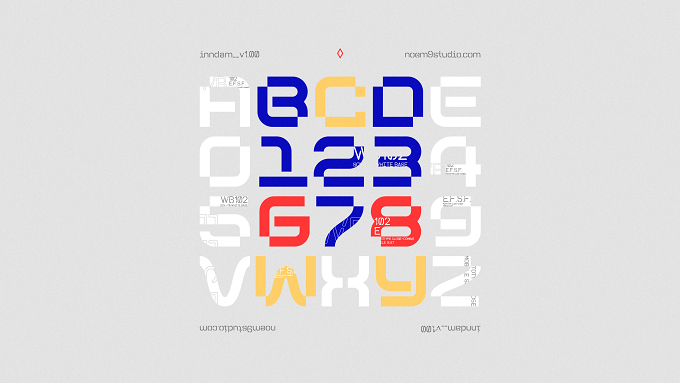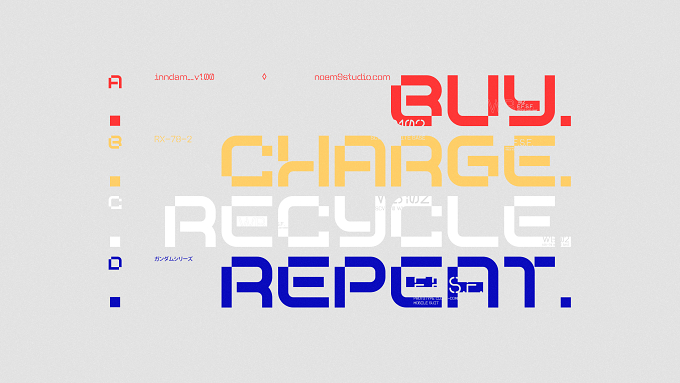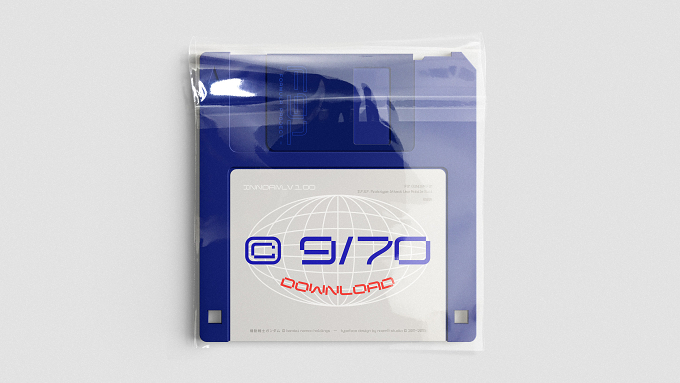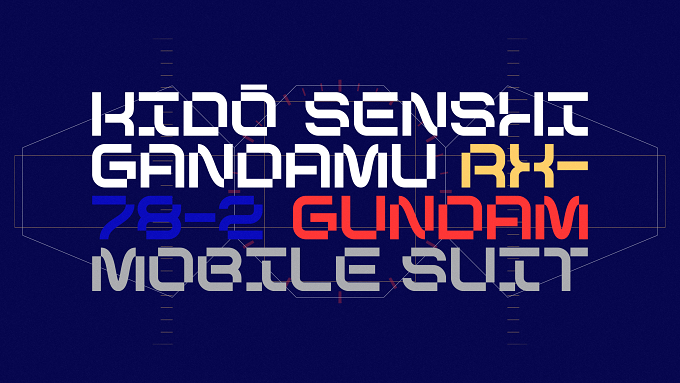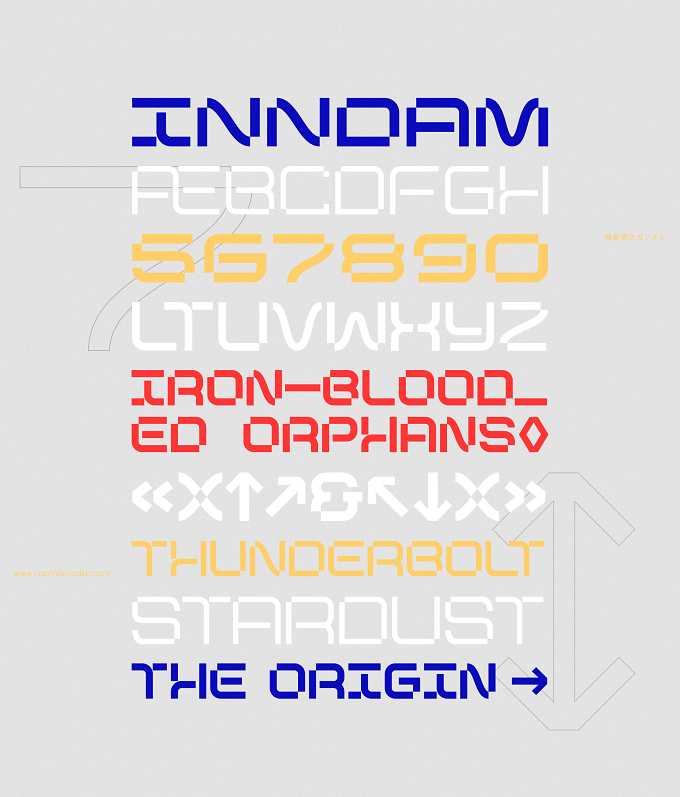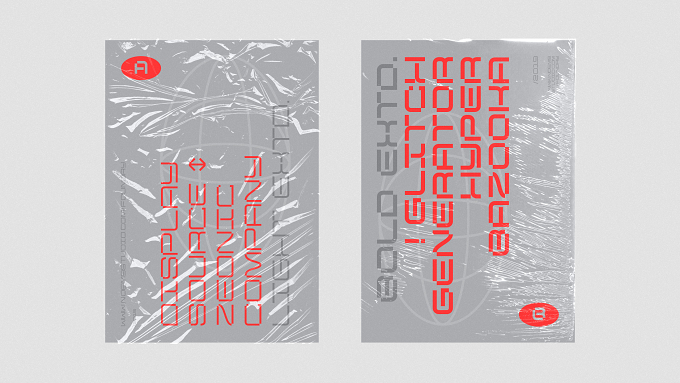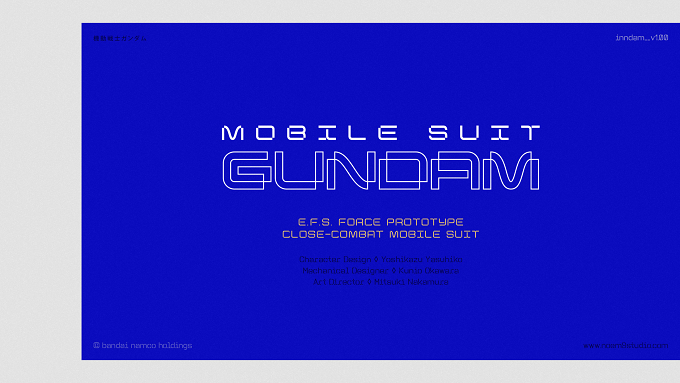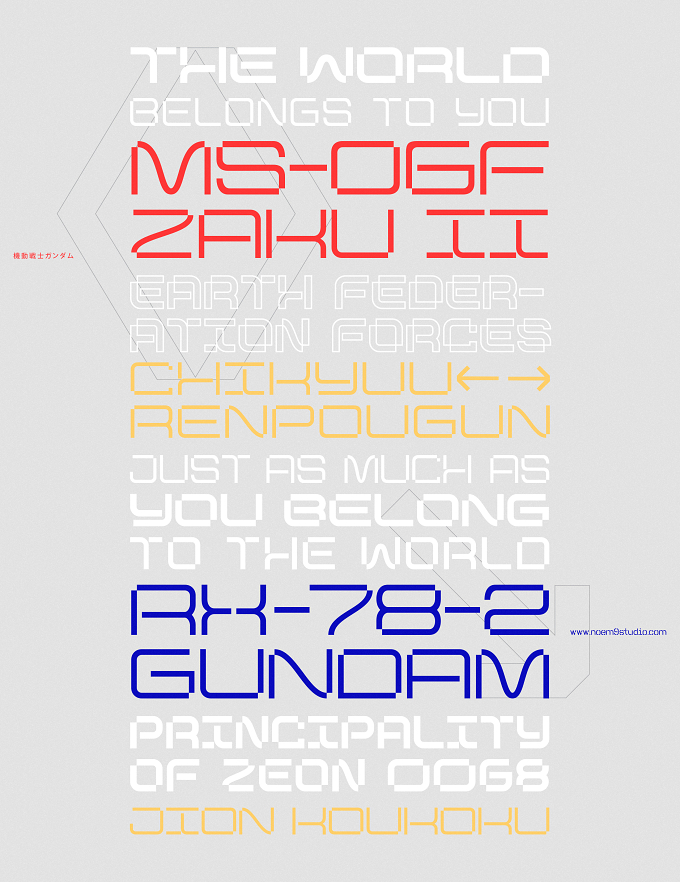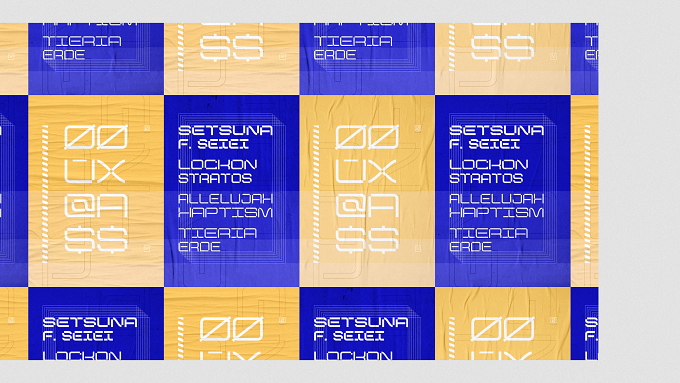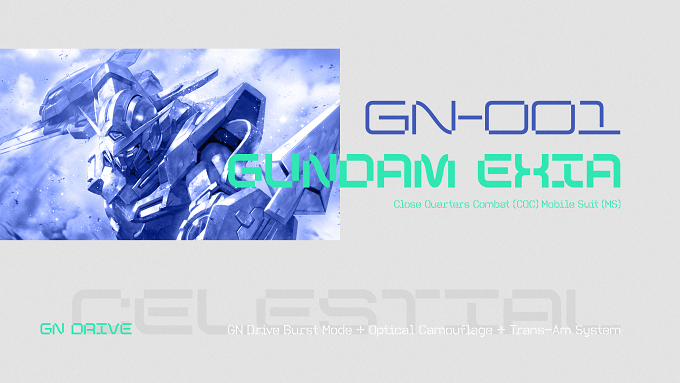
Inndam is a display typeface with a geometric structure inspired by sci-fi and robots (mecha). Its potential is increased with Normal & Extended widths which offer different moods.
It comes in 3 different weights: Light, Regular & Bold that you can select depending on your needs. Or use its variable options directly.
◊ More than 400 Glyphs
◊ 2 Different Widths (Normal & Extended)
◊ 3 Weights (Light, Regular & Bold)
◊ Over 35 languages supported